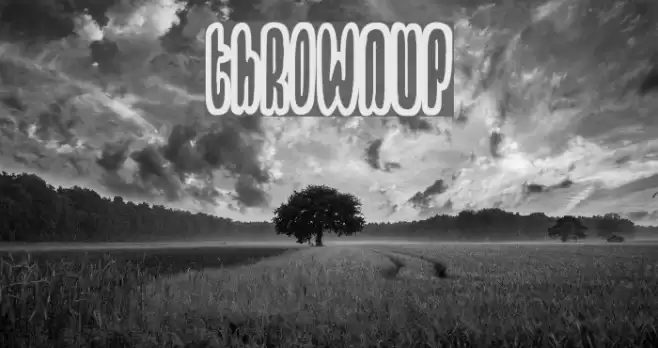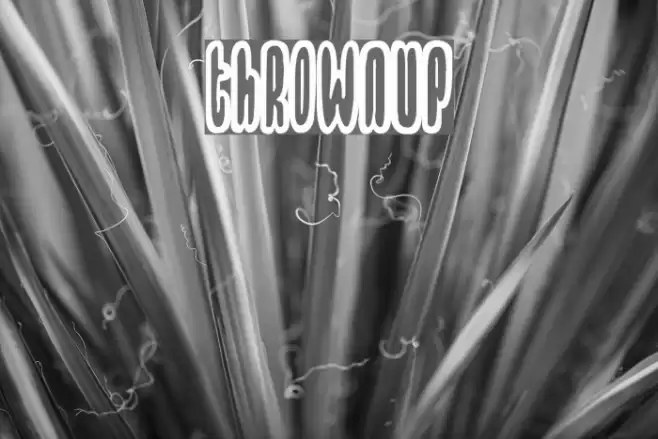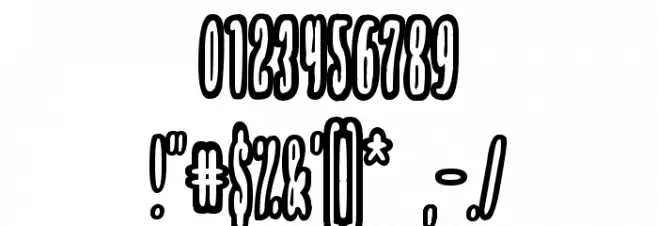
Thrownup Font
Thrownup Description
This font features a bold, playful style with thick, rounded strokes and a bubble-like appearance. The characters are tightly spaced, creating a compact and cohesive look. The uppercase and lowercase letters maintain a consistent design, with a slight whimsical flair that adds personality. The numbers and special characters follow the same aesthetic, ensuring uniformity across all glyphs. This font's unique style makes it stand out, perfect for projects that require a fun and engaging visual element.
A bold, playful font with rounded strokes and a bubble-like appearance from Graffiti fonts.
- Character Spacing: Tight
- Overall Style: Playful, Fun, Whimsical